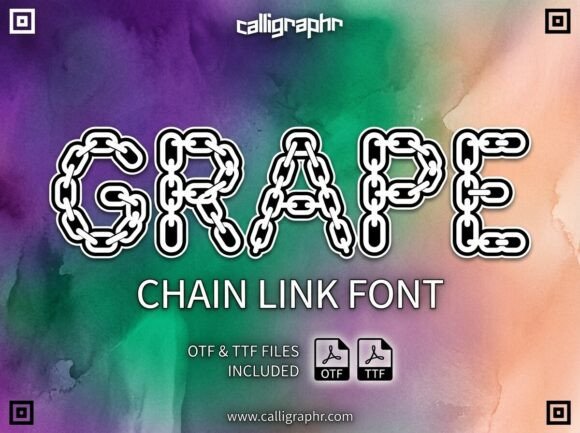
Introducing Grape Font: The Industrial Powerhouse for Bold Designs
In the world of typography, fonts play a crucial role in shaping the visual identity of a brand. For designers and crafters looking to make a statement, Grape Font is a game-changer. This high-impact display font embodies an “industrial-and-unbreakable” soul, making it perfect for projects that require a strong, rugged personality. In this article, we’ll dive into the unique features of Grape Font and explore its applications in various design fields.
The Unique Design of Grape Font
Grape Font boasts bold, hollow letterforms constructed from rhythmic, hand-drawn chain links. This distinctive design element forms the silhouette of each character, giving the font its industrial edge. The chain link pattern adds a sense of texture and depth to the letters, making them stand out in any design. The heavy graphic weight of Grape Font ensures that it commands attention, making it ideal for high-impact applications.
Applications of Grape Font
Grape Font’s rugged personality and industrial aesthetic make it a versatile choice for various design projects. Here are some of the areas where Grape Font excels:
Independent Fitness Branding
The fitness industry often requires bold, attention-grabbing typography to convey energy and motivation. Grape Font’s industrial vibe and strong personality make it an excellent choice for fitness branding, including gym logos, workout programs, and sports apparel.
Industrial Streetwear Logos
Streetwear and industrial fashion often incorporate bold, edgy designs. Grape Font’s chain link pattern and heavy graphic weight make it a natural fit for streetwear logos, adding an industrial touch to clothing and accessory designs.
Security-Focused Tech Headers
For tech-related projects that require a sense of security and strength, Grape Font is an excellent choice. Its industrial aesthetic and bold letterforms convey a sense of ruggedness and reliability, making it perfect for headers and titles in tech-related designs.
High-Impact Social Media Headers
Social media headers need to grab attention quickly. Grape Font’s bold, hollow letterforms and chain link pattern make it an excellent choice for creating high-impact headers that stand out on social media platforms.
Why Choose Grape Font?
With its unique design and versatility, Grape Font offers several benefits for designers and crafters:
- Instant Recognition: Grape Font’s bold, industrial design ensures that your project stands out and grabs attention.
- Versatility: The font’s rugged personality and industrial aesthetic make it suitable for a wide range of design applications.
- Easy to Read: Despite its bold design, Grape Font remains easy to read, even at smaller sizes.
- Unique Style: The chain link pattern and hollow letterforms give Grape Font a distinctive style that’s hard to replicate with other fonts.
Grape Font is a powerful tool for designers and crafters looking to add an industrial touch to their projects. Its bold, hollow letterforms and chain link pattern make it a versatile choice for various design applications, from fitness branding and streetwear logos to tech headers and social media graphics. With Grape Font, you can secure your creative vision and make a lasting impression on your audience.
Get Ready to Make a Statement with Grape Font
Ready to take your designs to the next level with Grape Font? Explore the font’s features and applications, and discover how it can help you create bold, attention-grabbing designs that leave a lasting impression.